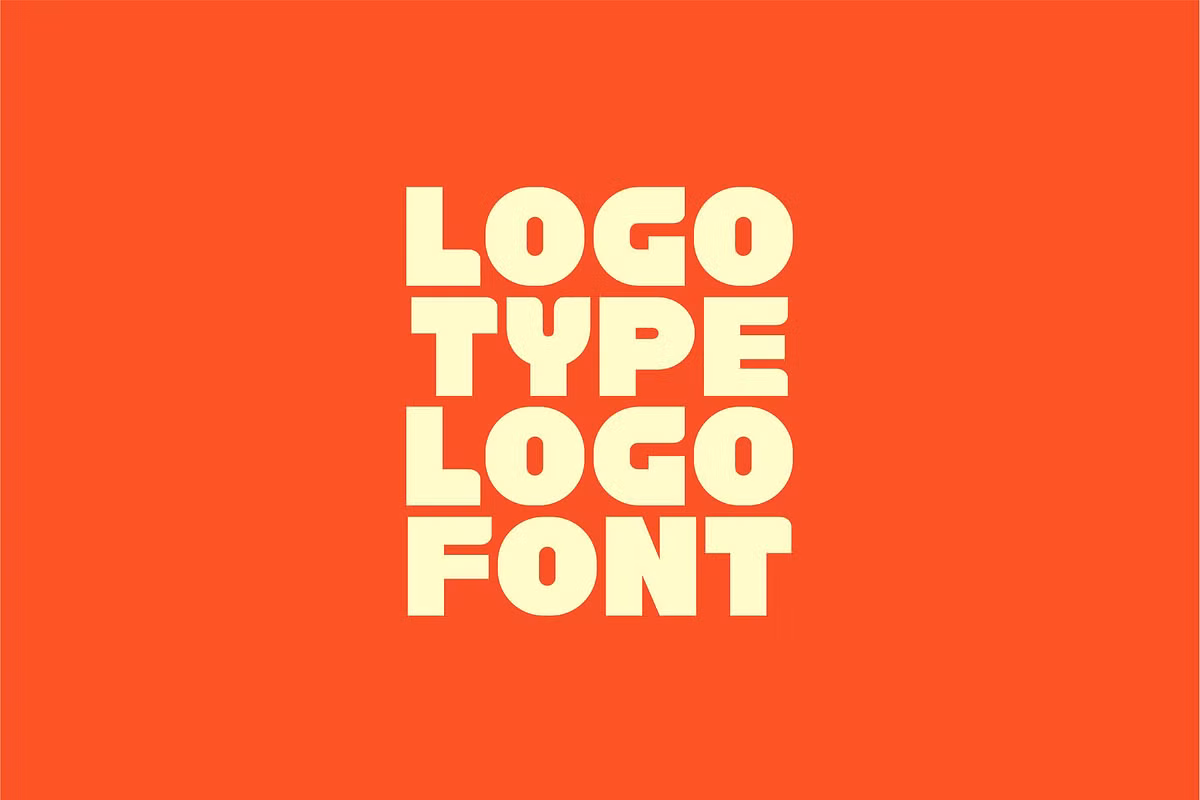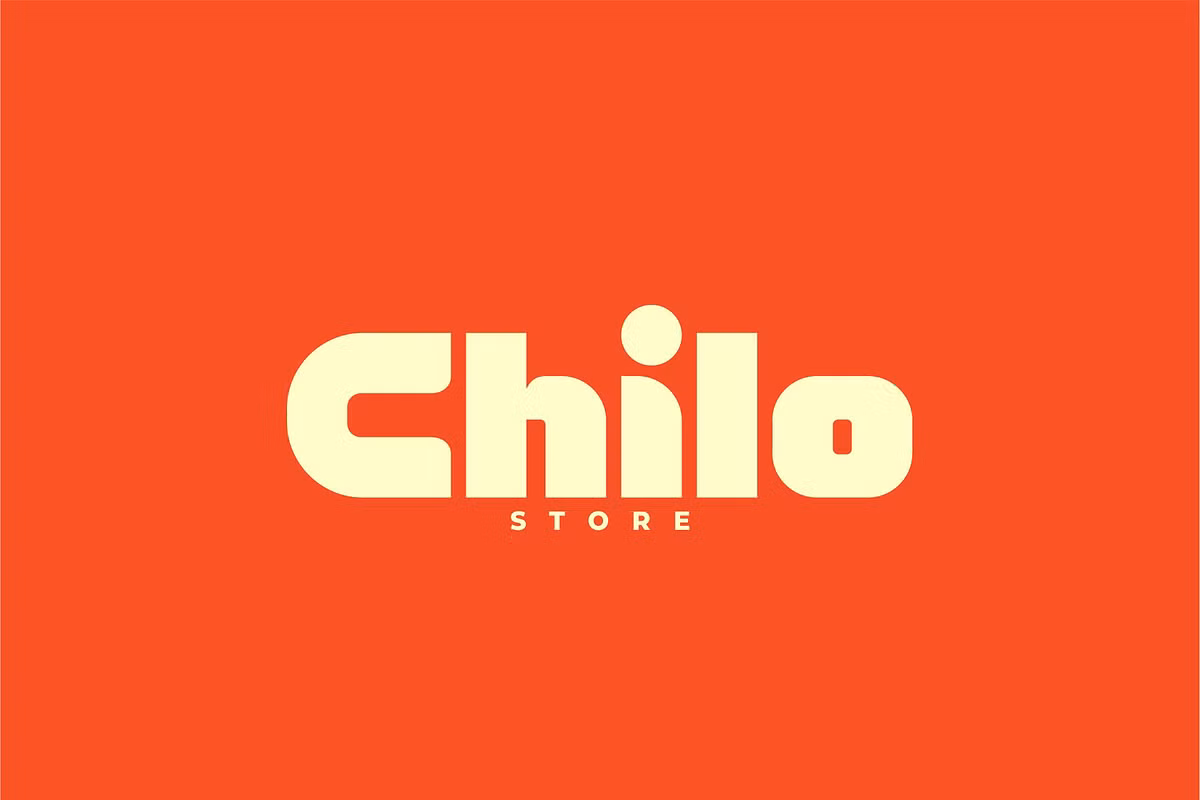
Kilon: Modern Bold Display Font for Elegant Design Projects
Kilon - Bold Display Font
Kilon: Modern Bold Display Font for Elegant Design Projects
Kilon is a really stylish font that looks great in modern designs. It’s a sans serif font, which means it doesn’t have any fancy edges or curls. This makes it look clean and simple, but also very elegant. The people who made Kilon wanted to create a font that would be perfect for contemporary design projects, like websites, posters, and magazines. They thought about what designers and artists would need, and they tried to make a font that would be both beautiful and easy to use. With its sleek and sophisticated look, Kilon is likely to become a popular choice among designers and creatives who want to make a statement with their work. It’s a great font for anyone who wants to add a touch of modern style to their designs.
Stylish font example showcased in modern design
An example of Kilon in modern design projects.
The Kilon font is really special because of its one-of-a-kind details that fit lots of different styles. It’s bold and eye-catching, but it also has simple, clean lines that make it easy to read and use in many different ways. This font has a very modern feel to it, which makes it perfect for things like fancy fashion brands, simple magazine designs, and lots of other uses in between. Its versatility is part of what makes it so great – it can work well for lots of different projects, from super sleek and modern to more classic and traditional. Overall, the Kilon font is a great choice for anyone looking for a font that’s both stylish and easy to use.
Kilon’s design has a nice balance to it, which makes it look good. It’s sleek and stylish, so it works well with both modern and classic designs. You can use it to make a big impact with headlines or to add a touch of sophistication to body text. Either way, Kilon adds a level of elegance that makes your whole design look better. Its proportions are well thought out, and the weight of the font is consistent, which creates a harmonious look. This means you can use Kilon in a variety of situations, from creating eye-catching titles to setting beautiful body text, and it will always look great.
Kilon font displayed in editorial design
Kilon used in editorial layouts enhances visual appeal.
Character Sets
Kilon is equipped with a comprehensive character set that includes uppercase letters, lowercase letters, numbers, and punctuation. This extensive range ensures that you can utilize the font in nearly any design scenario, providing the flexibility needed for various projects.
Kilon has a really useful feature – it supports many languages. This makes it perfect for big brands or projects that need to reach people who speak different languages. Because Kilon can communicate in multiple languages, designers can create designs that are welcoming and easy to understand for a larger group of people. It’s great for making sure everyone can access and enjoy the design, no matter what language they speak. This feature is especially helpful for projects that want to reach a global audience, as it allows designers to connect with people from different cultures and backgrounds. By being able to convey messages in many languages, Kilon helps designers create designs that are inclusive and effective.
Kilon font showcasing multilingual support
Kilon’s multilingual support broadens design accessibility.
Use Cases
The versatility of Kilon makes it suitable for a myriad of design applications. Here are some key use cases where Kilon can elevate your project:
• Magazines and Editorials: Kilon’s bold presence is perfect for magazine covers and editorial layouts, where impactful headlines draw readers in.
• Packaging: For brands looking to stand out on store shelves, Kilon adds a touch of sophistication to product packaging, making it memorable.
• Logos and Branding: The font’s modern aesthetic is ideal for logo design, providing a solid and stylish foundation for brand identities.
• Posters and Banners: With its eye-catching design, Kilon is perfect for event posters and promotional banners, ensuring that your message is seen.
• Fashion Labels: The chic and elegant nature of Kilon aligns perfectly with fashion branding, making it a great choice for designers in the industry.